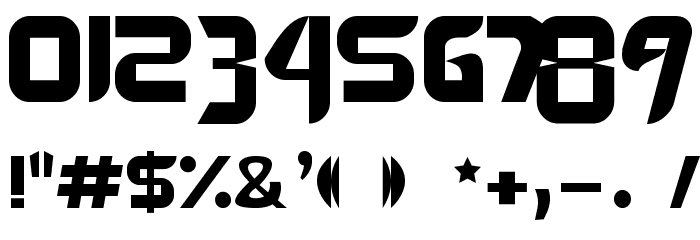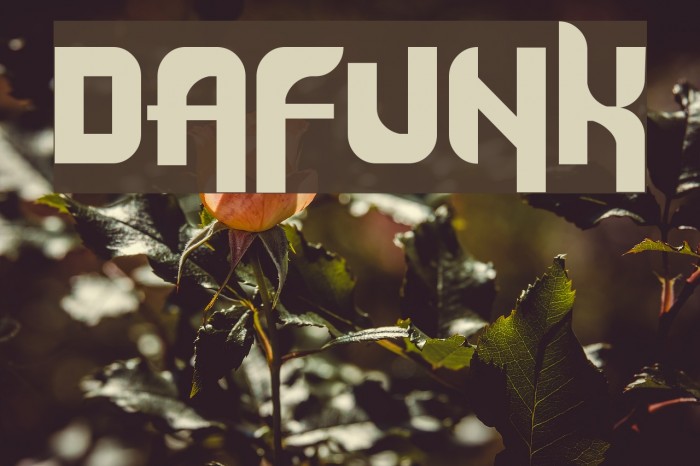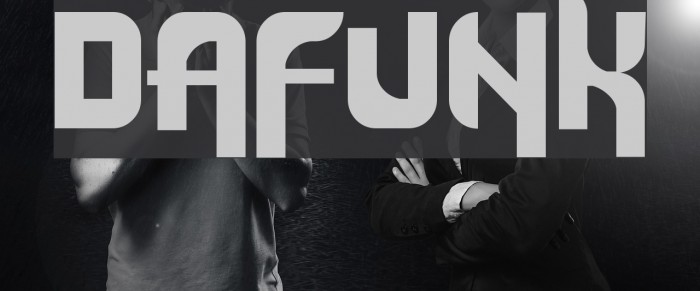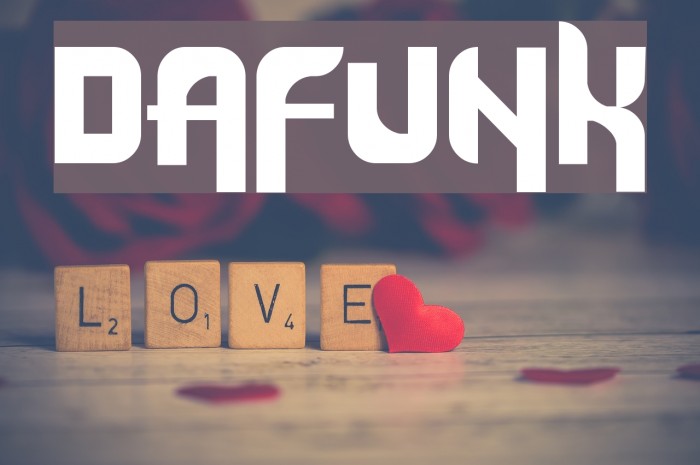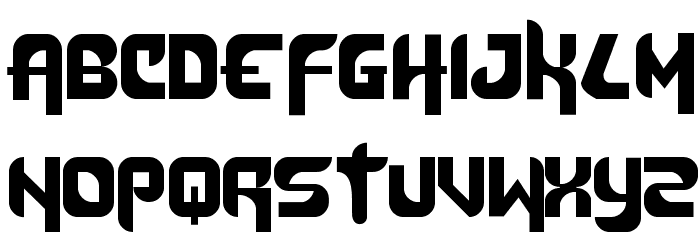
Dafunk Font
Dafunk Description
This font features a bold, futuristic style with geometric shapes and sharp angles. The characters are designed with a unique blend of straight lines and curves, giving it a modern and edgy appearance. The uppercase and lowercase letters maintain a consistent design, while the numbers and special characters complement the overall aesthetic. The font's distinctiveness makes it suitable for projects that require a strong visual impact.
A bold, futuristic font with geometric shapes and sharp angles from Uncategorized fonts.
- Proposed Projects: Ideal for branding, posters, album covers, and digital media that require a modern and impactful look.